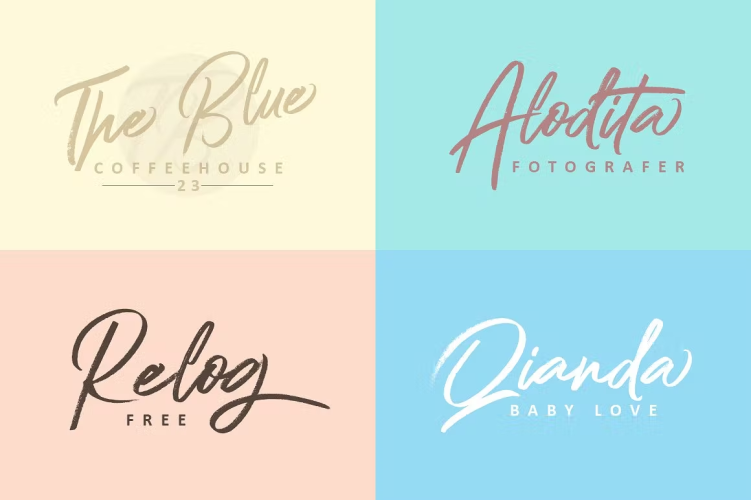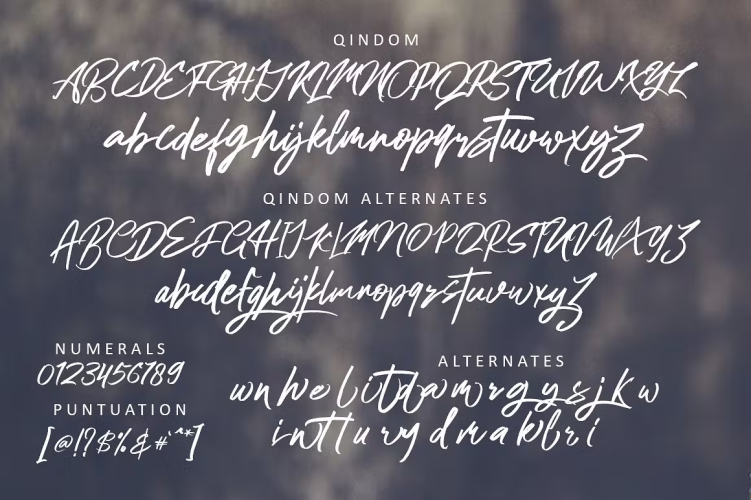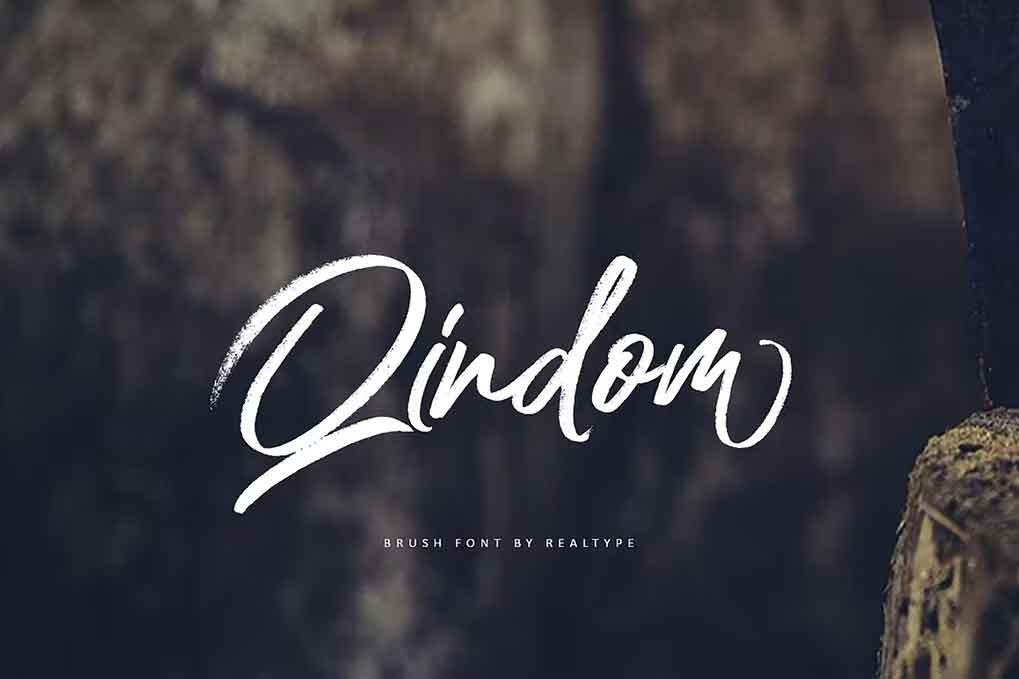
Qindom Brush Font
Introducing!
Qindom Brush Script Typeface!
Qindom inspired by natural brush typeface. Written in fast motion using a little bit dry brush pen. It will give you a fresh and modern design and will look beautiful with offer, magazine mode, offer logo, product packaging, headers, posters, merchandise, social media greeting cards & more.
Qindom comes with uppercase and lowercase letters, large sets and lowercase sets of international flying machines, numbers, and languages that can be used for international languages. Alternate styles for some lowercase characters are also available
Qindom Brush Font is a Script And Handwritten font that brings a professional and versatile look to your projects. Introducing! Qindom Brush Script Typeface!.